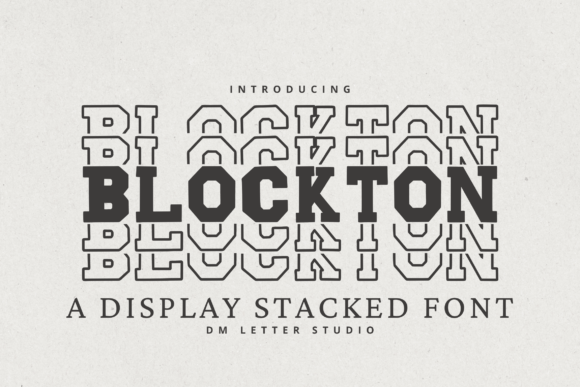
Give Your Designs an Edge with Blockton Stacked Font
Imagine you’re brainstorming ideas for a new logo, and suddenly, a bold, eye-catching concept strikes. You envision a design that leaps off the page, grabs attention, and leaves a lasting impression. That’s where Blockton Stacked Font comes in – a game-changing display font that adds instant depth and impact to your designs.
With its stacked, layered construction, Blockton Stacked Font delivers a modern, playful look that’s both dynamic and readable. Whether you’re working on logos, posters, packaging, or statement branding, this versatile font is perfect for making your designs stand out. Its clean, well-aligned structure ensures it looks great at any size, making it a valuable addition to any designer’s toolkit.
Blockton Stacked Font Key Features
- Unique Characteristics: Stacked font design, allowing for increased text density and visual interest; perfect for use in headlines, titles, and other attention-grabbing text elements
Blockton Stacked Font Review
At first glance, the Blockton Stacked Font catches my attention with its unique, stacked letterform design. ✨ I appreciate how this font is perfect for adding a touch of whimsy to titles, headings, or even short blocks of text.
- Unconventional design that stands out from more traditional fonts ✨
- Well-suited for digital use, particularly in UI design and web development ✨
- Easily legible even at smaller font sizes ✨
- May not be suitable for long blocks of text, as the stacked design can become overwhelming ⚠️
- Could be challenging to pair with more traditional fonts, as the design is quite bold ⚠️
- May not be the best choice for print materials, where readability and clarity are crucial ⚠️
Overall, I think the Blockton Stacked Font is a great addition to any designer’s toolkit, but it’s essential to use it judiciously and consider the context in which it will be used.
Blockton Stacked Font is ideal for:
1. Headings and titles in design projects.
2. Adding a touch of uniqueness to text-based designs.
3. Creating a creative, artistic look in print or digital designs.